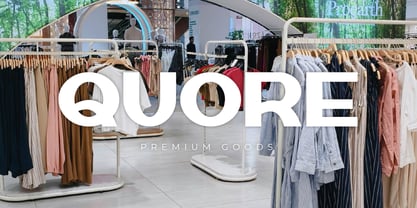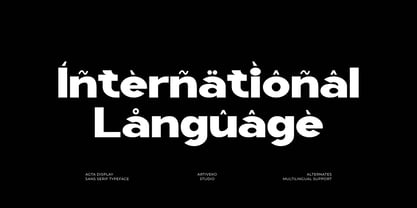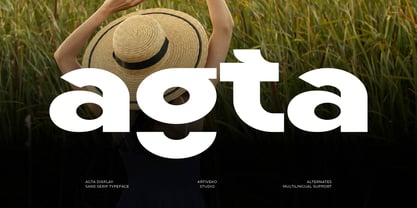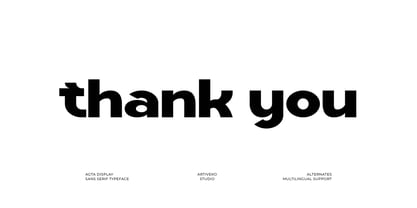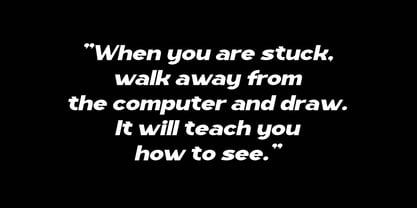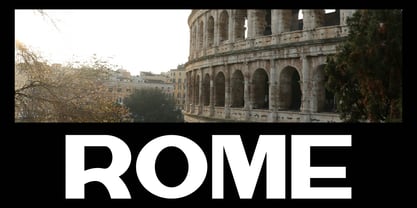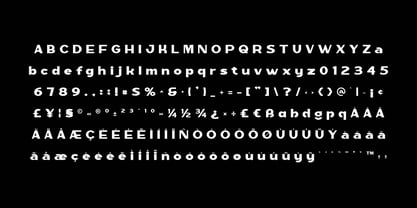
Agta
by Artiveko
The Agta Font Family was designed by Iwan Alwan and published by Artiveko. Agta contains 2 styles and family package options. More about this family
Agta is a modern creative sans serif typeface designed to bring clarity, flexibility, and contemporary style to your design projects. With clean lines, balanced proportions, and subtle unique details, Agta offers a professional yet expressive look. Perfect for branding, logos, visual identity, packaging, social media graphics, websites, and digital design, Agta adapts easily across a wide range of creative applications. Its modern structure ensures readability while maintaining a distinctive personality that enhances your visual communication. Whether you're working on creative studios, startups, or modern brand identities, Agta delivers a clean and confident typographic voice. Agta is not just a font — it’s a versatile creative tool for modern design.
Designers: Iwan Alwan
Foundry: Artiveko